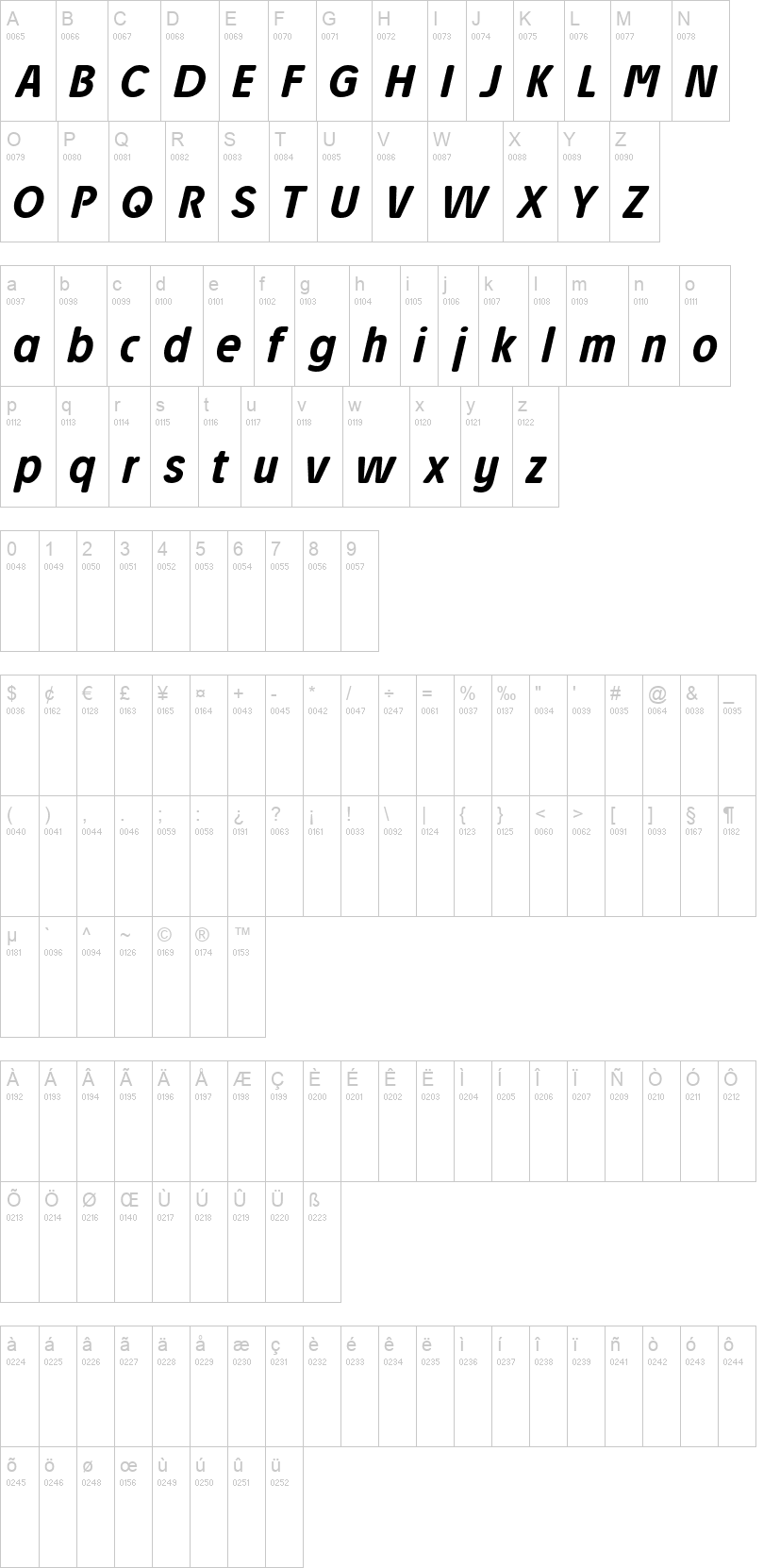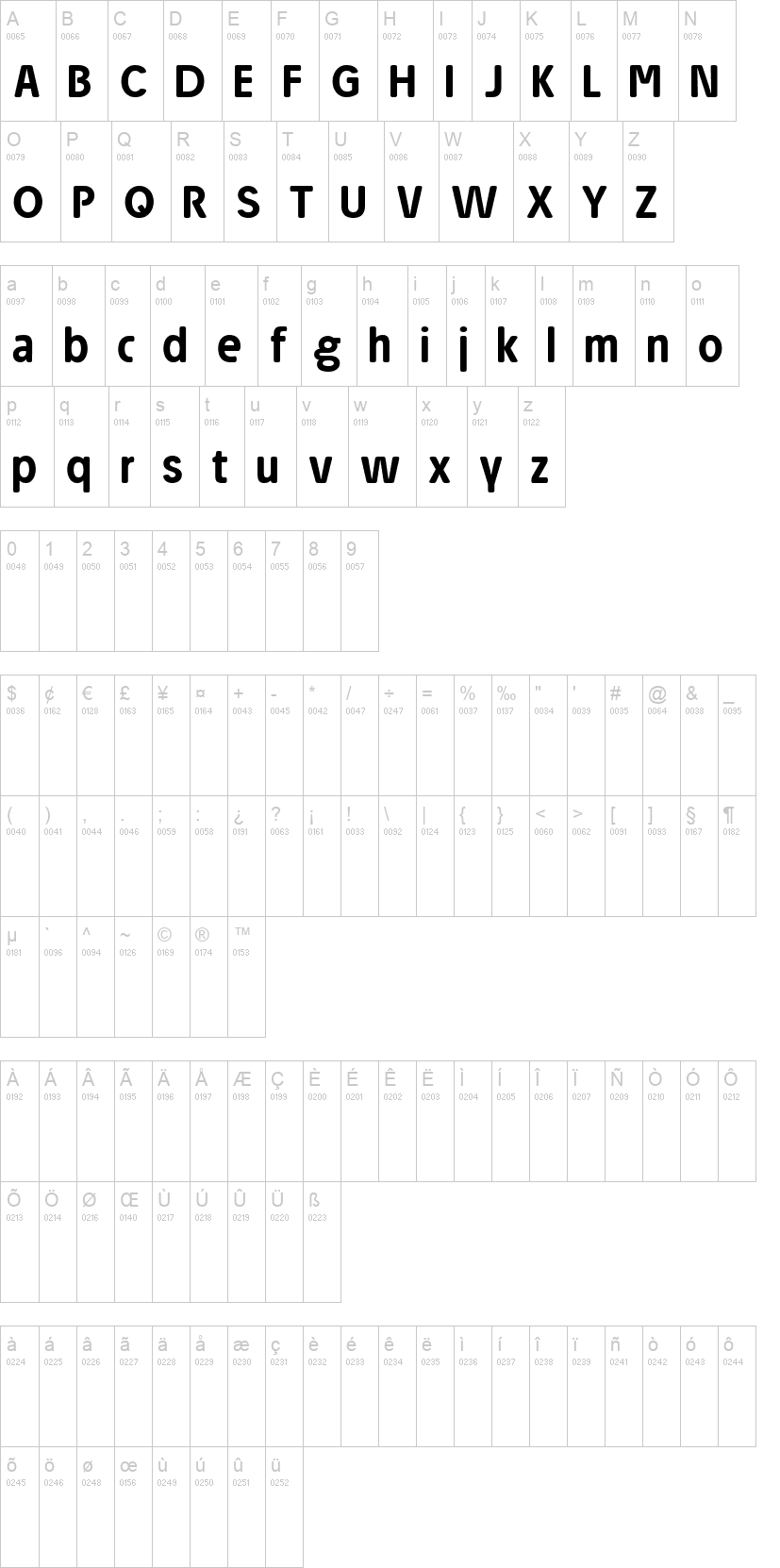
Josefa Rounded is a beautiful text typeface. Its unostentatious forms and balanced narrow proportions along with the softened round edges make it to appear gentle and pleasing even in longer texts.
Modern, very legible
Narrow proportions
High x-height
Distinctive forms
Determining for the personality of Josefa Rounded are also particular idiosyncratic letters. For instance B P and R is designed openly; the bars of E and F equal each other; lower case c and e are distinctly withdrawn in their lower zone; y is symmetrical.
Short ascenders generate compact word images. Cap height is shorter than the ascenders, so capitals are only little higher than x-height.
Josefa Rounded is provided in 7 weights including the corresponding italics.
Tabular figures and proportional figures are available through the appropriate OpenType function as well as ligatures and discretional ligatures.